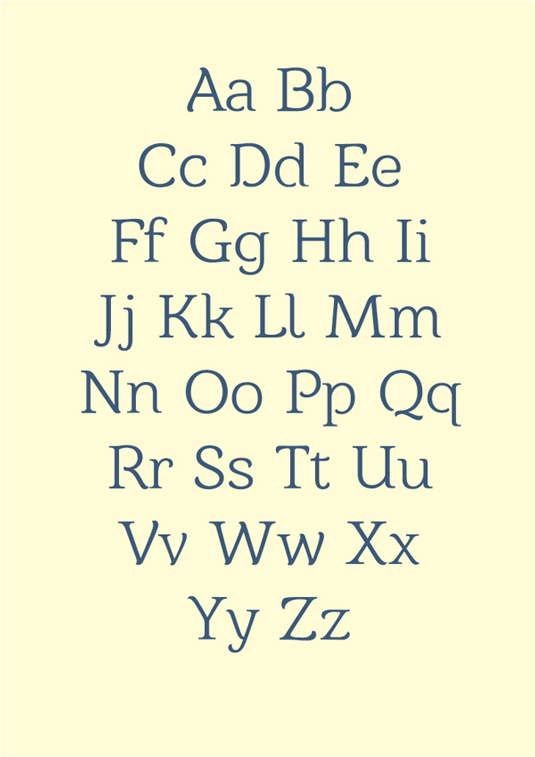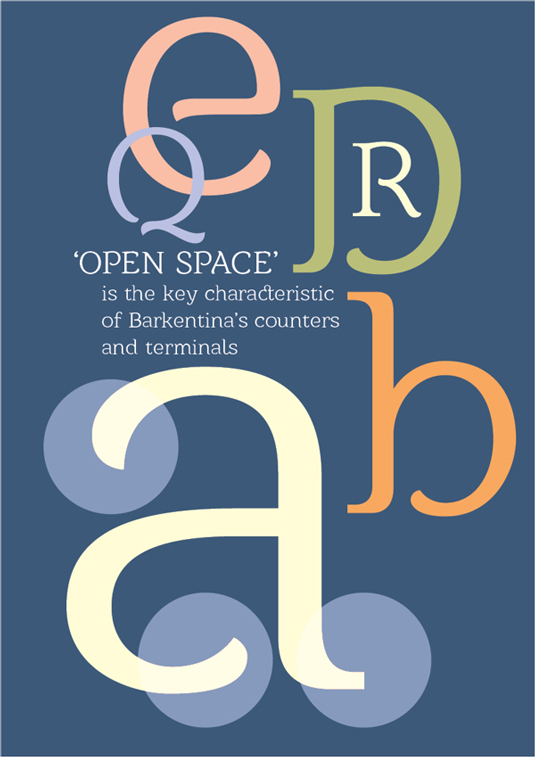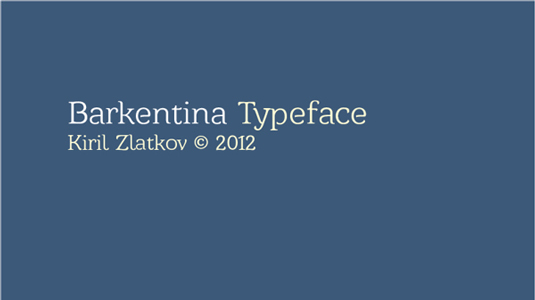
Font of the day: Barkentina
Barkentina by Kiril Zlatkov
Today's typeface of choice is Barkentina, a display font created by designer Kiril Zlatkov. "Barkentina is focused on elegant, stylish and art-deco looking print and web materials," Zlatkov comments on Design.bi.